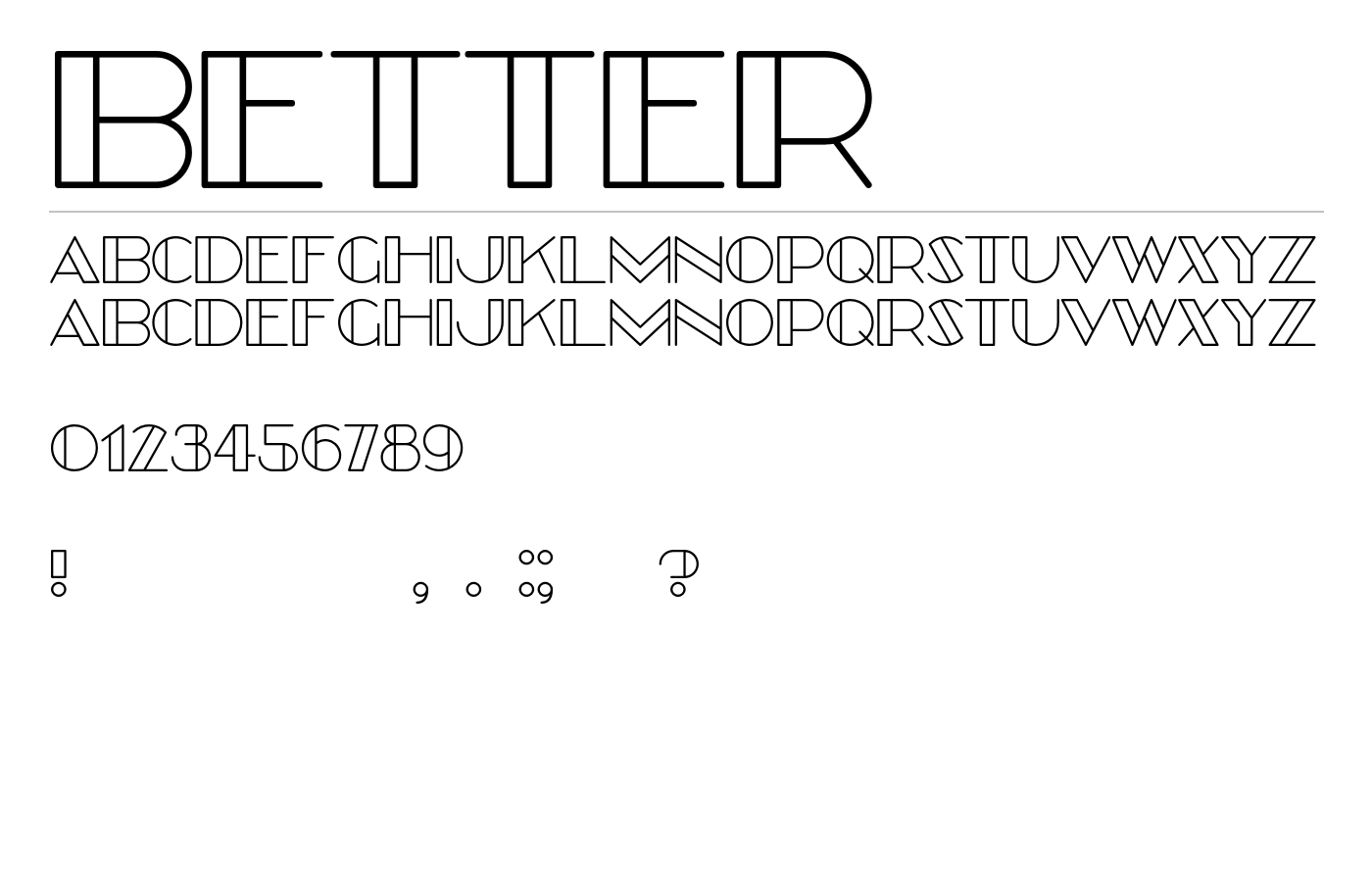
Better Font is a sleek, modern sans serif typeface characterized by its thin, geometric lines and minimal stroke contrast, giving it an elegant and futuristic look. Its tall, narrow letterforms with distinct angular details make it perfect for stylish headlines, branding, and editorial layouts where a contemporary and sophisticated vibe is desired. This font works best in designs that require a clean, cutting-edge aesthetic without sacrificing readability.
Better Font
About Better Font